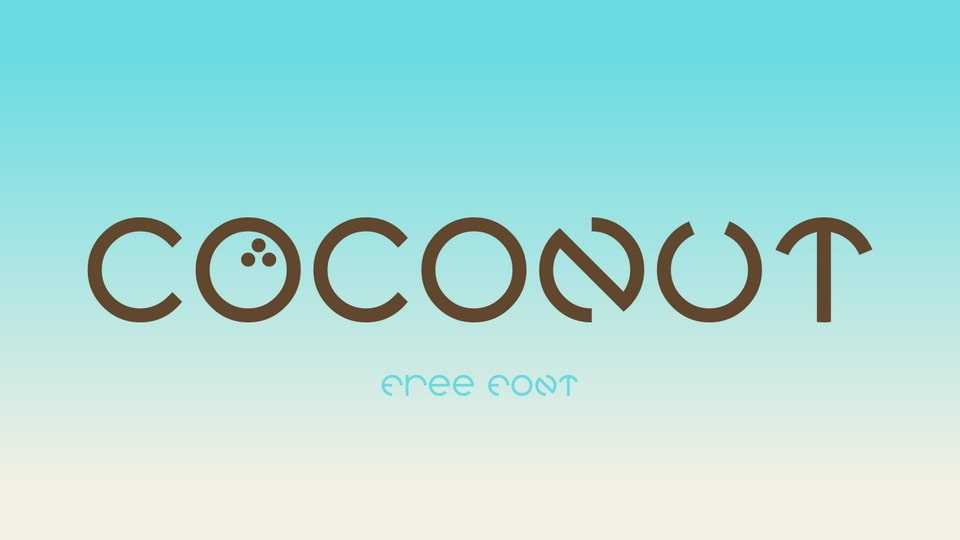
Download Coconut font, a decorative geometric display typeface based on round modular shapes. Coconut font is perfect for posters, logos and typography compositions.